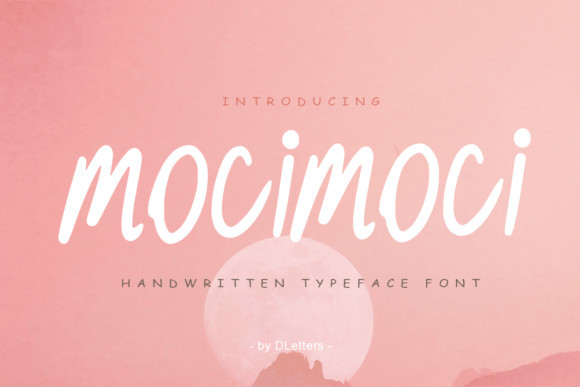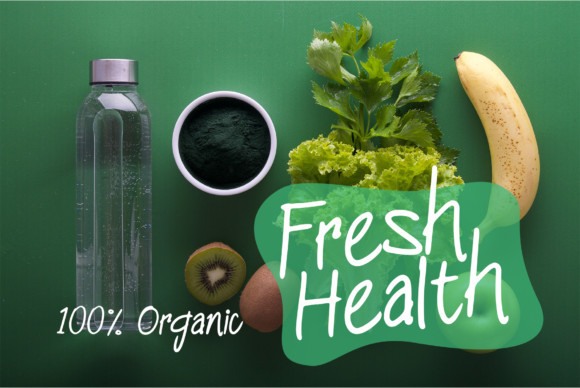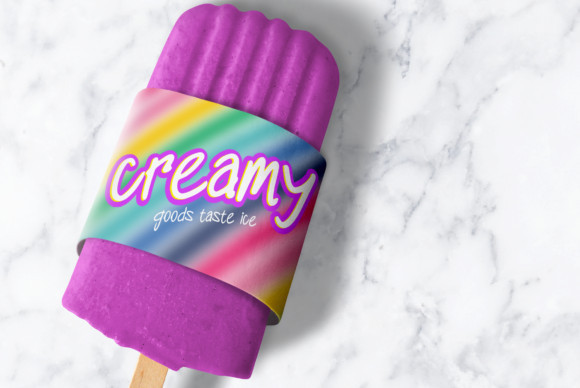
Mocimoci Font
Mocimoci is a cute display font. It maintains its classy calligraphic influences while feeling contemporary and fresh. This versatility will appeal to a wide range of crafty ideas, from letterheads and titles, to stationery.